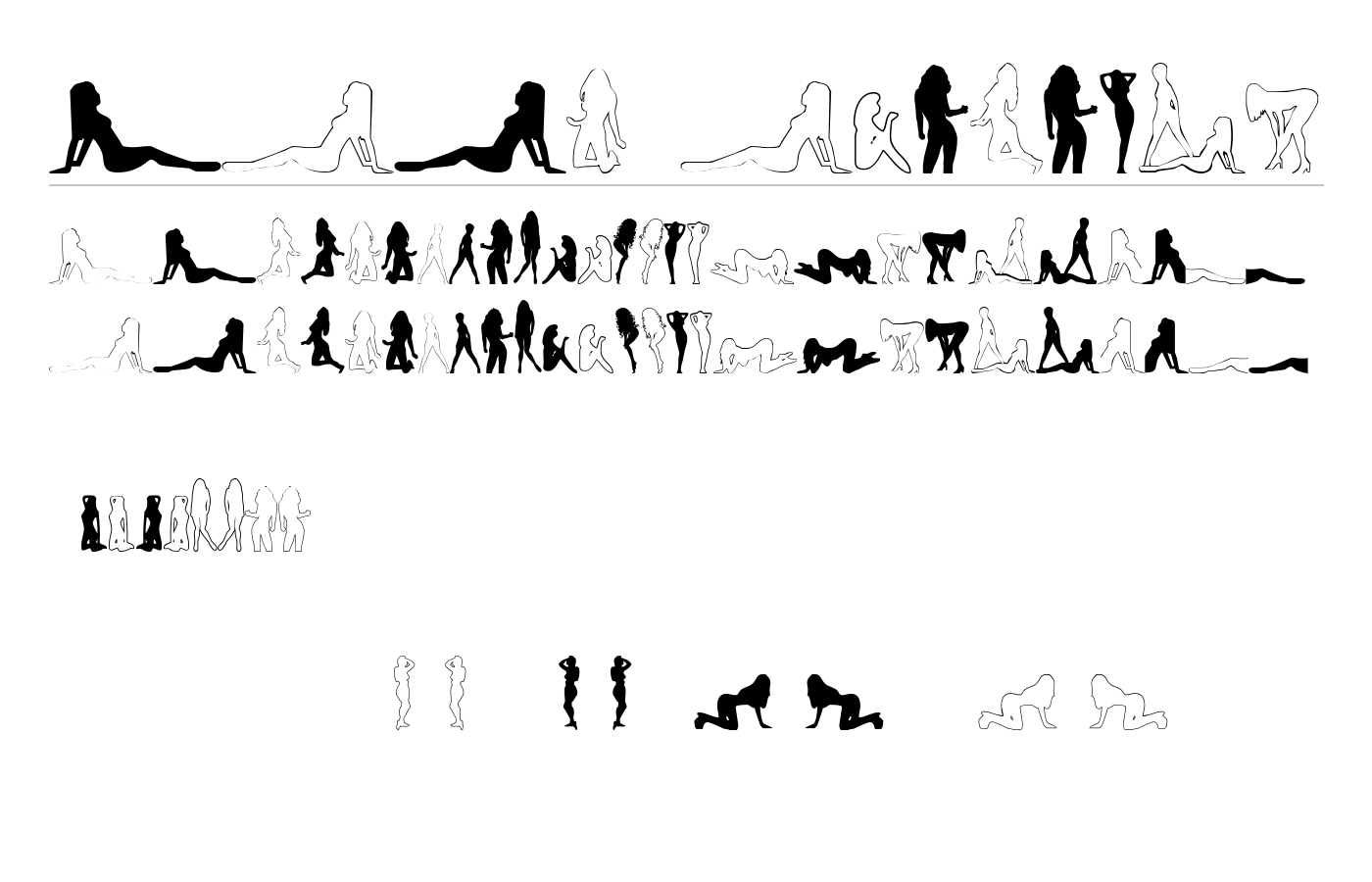
Babe-alicious is a decorative display font featuring stylized silhouettes of women in various poses, presented as glyphs rather than traditional letters. This unique font offers a bold and playful visual element, ideal for projects seeking a provocative or edgy aesthetic. It works best for creative branding, poster designs, or novelty uses where an eye-catching and unconventional look is desired.
Babe-alicious Font
About Babe-alicious Font